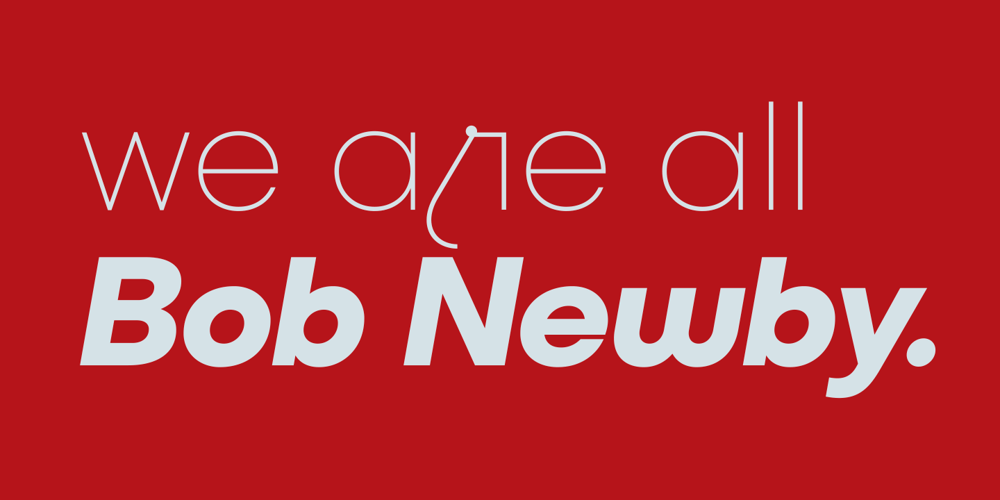
Liliana Font Family was designed by Juan Pablo De Gregorio and published by Letritas. Liliana contains 18 styles and family package options. Liliana is a geometrical typeface, born throughout comprehensive formal studies while testing new ways of displaying certain words and sentences. The essential structure of Liliana is very conservative: It can look similar to other geometrical typographies, however, it has unique features that make this project very special. Liliana is a typeface that will work perfectly while setting short texts, words, and phrases as well. It shall perform greatly even when the paragraph is too short. Thanks to the versatility of its alternate characters, Liliana is perfect to achieve eye-catching texts. The spirit of this typography is focused on its “s” character, which originates from manuscript writings and provides a very special identity. If the text does not contain the letter “s”, the intended personality can still be achieved by using alternate characters such as “f”, “l”, “r” and “L”, which are aligned with the same concept. On top of that, may all this still not be enough, you can furthermore use its ligatures and swashes. It is actually hard not to set a spectacular text with Liliana! Liliana is a typeface optimal for being used in marketing assets, packaging design, magazines, branding, film captions, headlines, editorial, quotes, logos, corporate identity, and motion graphics. The italic version has a 10-degree slant. This feature is intended to convey a gorgeous feeling of tension, power, and agility. It’s very interesting to realize how the dynamism in the italic characters works when compared with the regular ones. The typeface has 9 weights, ranging from “thin” to “heavy”, and two versions: “regular” and “italic”. Its 18 files contain 642 characters with ligatures, alternates, and swashes. It supports 219 Latin-based languages, spanning through 212 different countries. Liliana supports this languages: Abenaki, Afaan Oromo, Afar, Afrikaans, Albanian, Alsatian, Amis, Anuta, Aragonese, Aranese, Aromanian, Arrernte, Arvanitic (Latin), Asturian, Atayal, Aymara, Bashkir (Latin), Basque, Bemba, Bikol, Bislama, Bosnian, Breton, Cape Verdean Creole, Catalan, Cebuano, Chamorro, Chavacano, Chichewa, Chickasaw, Cimbrian, Cofán, Corsican Creek,Crimean Tatar (Latin),Croatian, Czech, Dawan, Delaware, Dholuo, Drehu, Dutch, English, Estonian, Faroese, Fijian Filipino, Finnish, Folkspraak, French, Frisian, Friulian, Gagauz (Latin), Galician, Ganda, Genoese, German, Gikuyu, Gooniyandi, Greenlandic (Kalaallisut)Guadeloupean, Creole, Gwich’in, Haitian, Creole, Hän, Hawaiian, Hiligaynon, Hopi, Hotcąk (Latin), Hungarian, Icelandic, Ido, IgboI, locano, Indonesian, Interglossa, Interlingua, Irish, Istro-Romanian, Italian, Jamaican, Javanese (Latin), Jèrriais, Kala Lagaw Ya, Kapampangan (Latin), Kaqchikel, Karakalpak (Latin), Karelian (Latin), Kashubian, Kikongo, Kinyarwanda, Kiribati, Kirundi, Klingon, Ladin, Latin, Latino sine Flexione, Latvian, Lithuanian, Lojban, Lombard, Low Saxon, Luxembourgish, Maasai, Makhuwa, Malay, Maltese, Manx, Māori, Marquesan, Megleno-Romanian, Meriam Mir, Mirandese, Mohawk, Moldovan, Montagnais, Montenegrin, Murrinh-Patha, Nagamese Creole, Ndebele, Neapolitan, Ngiyambaa, Niuean, Noongar, Norwegian, Novial, Occidental, Occitan, Old Icelandic, Old Norse, Oshiwambo, Ossetian (Latin), Palauan, Papiamento, Piedmontese, Polish, Portuguese, Potawatomi, Q’eqchi’, Quechua, Rarotongan, Romanian, Romansh, Rotokas, Sami (Inari Sami), Sami (Lule Sami), Sami (Northern Sami), Sami (Southern Sami), Samoan, Sango, Saramaccan, Sardinian, Scottish Gaelic, Serbian (Latin), Seri, Seychellois Creole, Shawnee, Shona, Sicilian, Silesian, Slovak, Slovenian, Slovio (Latin), Somali, Sorbian (Lower Sorbian), Sorbian (Upper Sorbian), Sotho (Northern), Sotho (Southern), Spanish, Sranan, Sundanese (Latin), Swahili, Swazi, Swedish, Tagalog, Tahitian, Tetum, Tok Pisin, Tokelauan, Tongan, Tshiluba, Tsonga, Tswana, Tumbuka, Turkish, Turkmen (Latin), Tuvaluan, Tzotzil, Uzbek (Latin), Venetian, Vepsian, Volapük, Võro, Wallisian, Walloon, Waray-Waray, Warlpiri, Wayuu, Welsh, Wik-Mungkan, Wiradjuri, Wolof, Xavante, Xhosa, Yapese, Yindjibarndi, Zapotec, Zulu, Zuni.